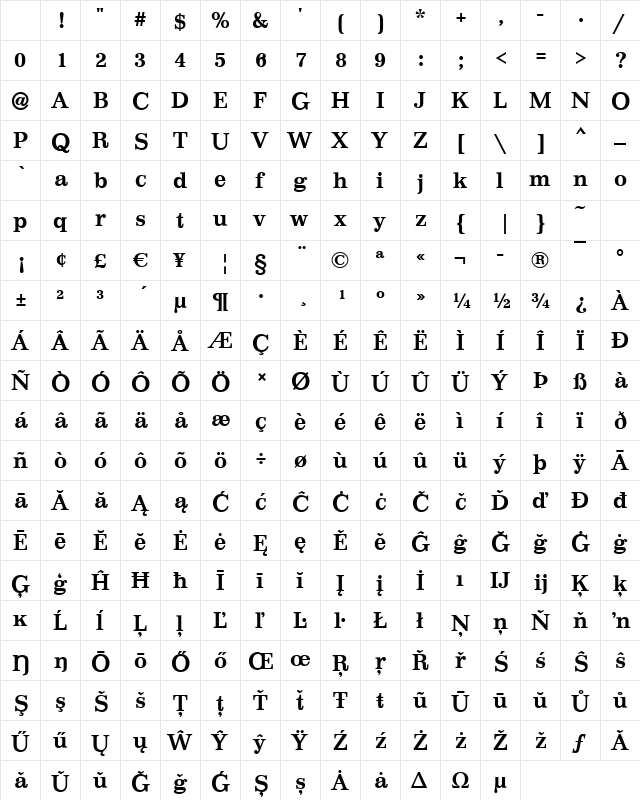
Complete Illinois Medium glyph index. Displaying only characters natively supported by Illinois Medium font.
Illinois is a composed and adaptable typeface that performs quietly and consistently across a wide range of design contexts.